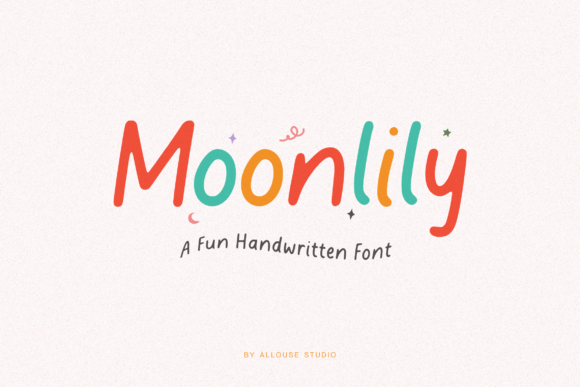
Introducing Moonlily Font: An Enchanting Journey Through Imagination
Dive into a world of whimsy and creativity with Moonlily Font, an enchanting display font that captivates hearts and ignites imaginations. Its playful and authentic spirit shines through in every letter, making it the perfect companion for your next children's activity or school project.
With its vibrant color palette and playful curves, Moonlily Font breathes life into your designs. Its unique characters evoke a sense of playfulness and adventure, inviting users to explore the realms of their imagination. Whether you're creating marketing materials, social media posts, or invitations, Moonlily Font is guaranteed to leave a lasting impression.
Embrace the magic of Moonlily Font and transport your audience to a world where anything is possible. Its charming aesthetics and captivating energy will leave them mesmerized, making your designs truly unforgettable.